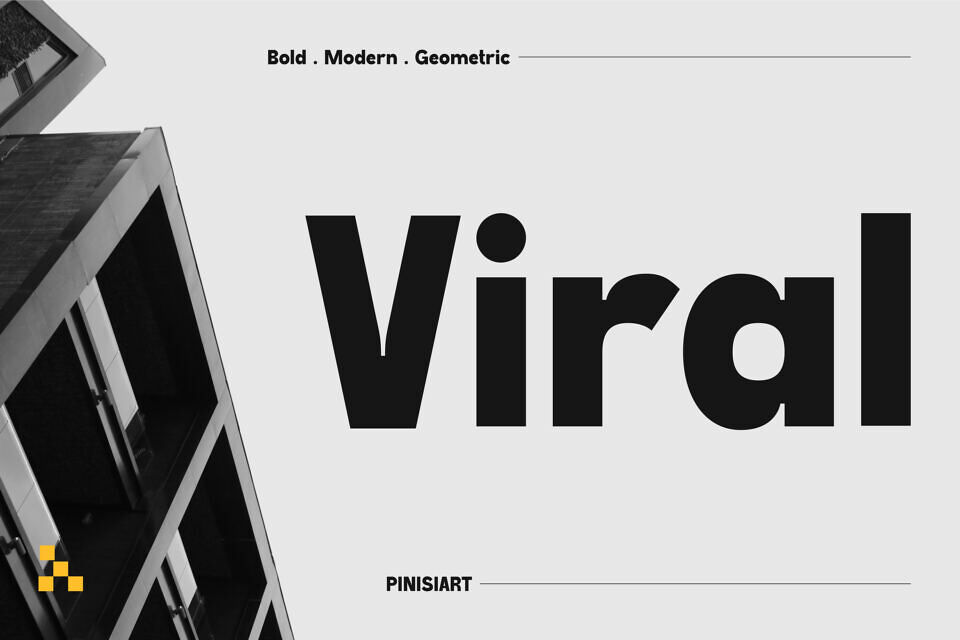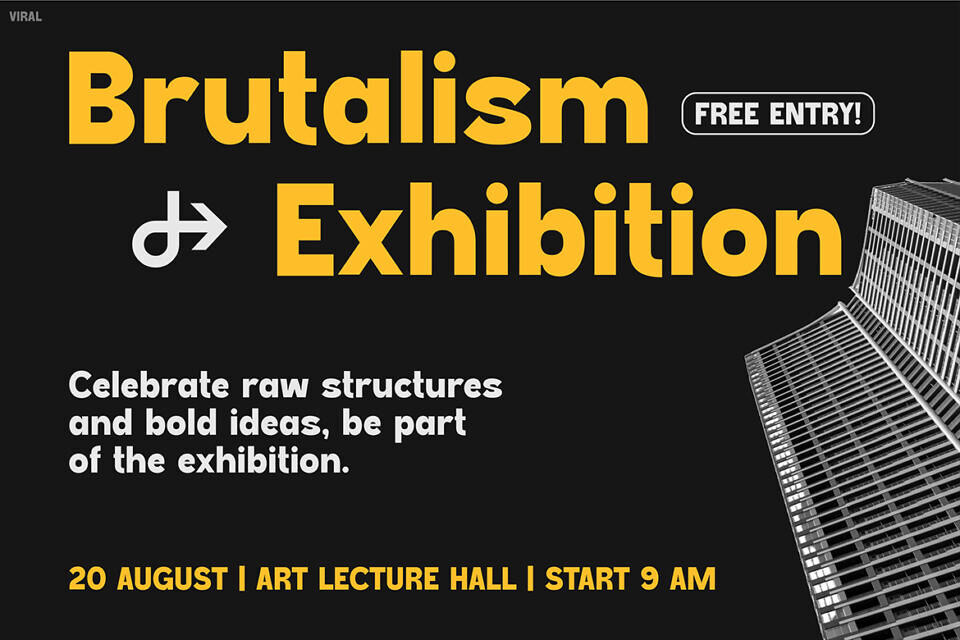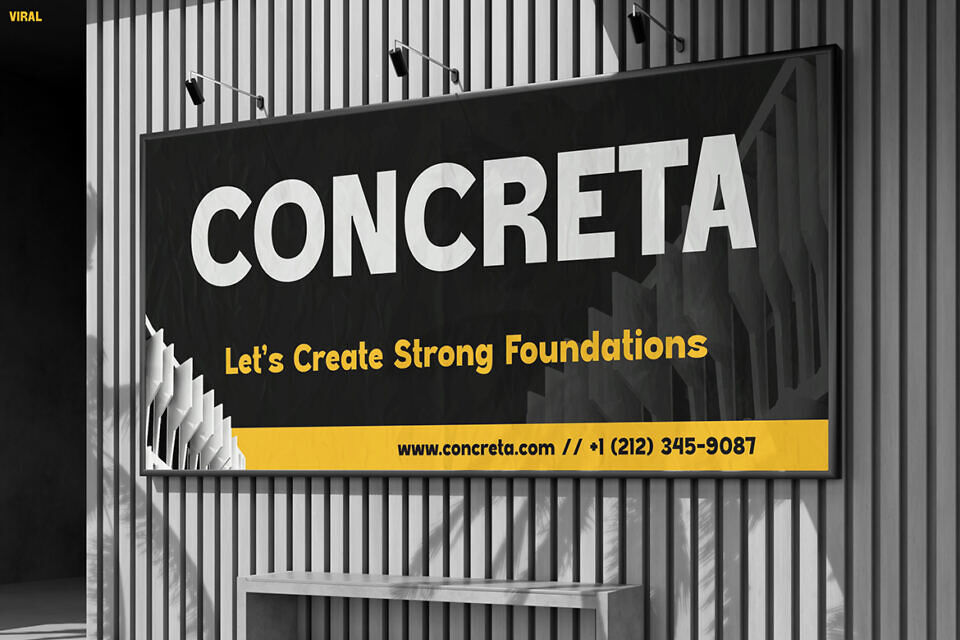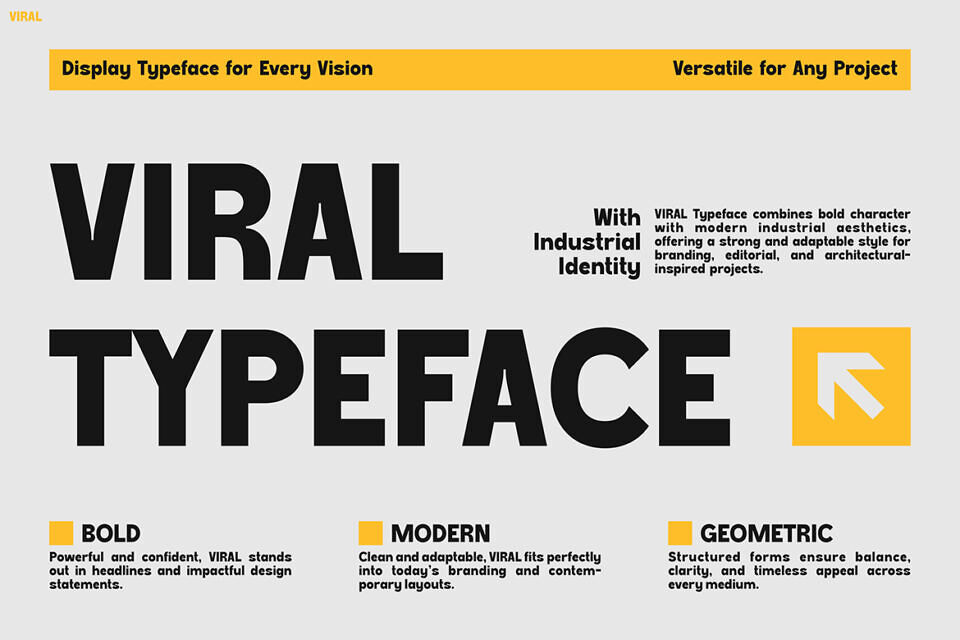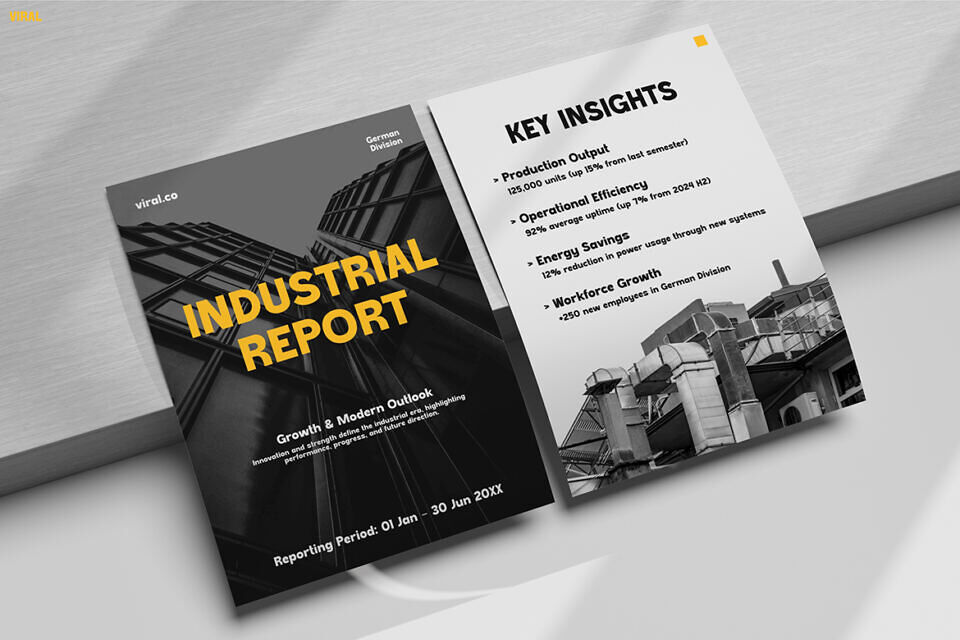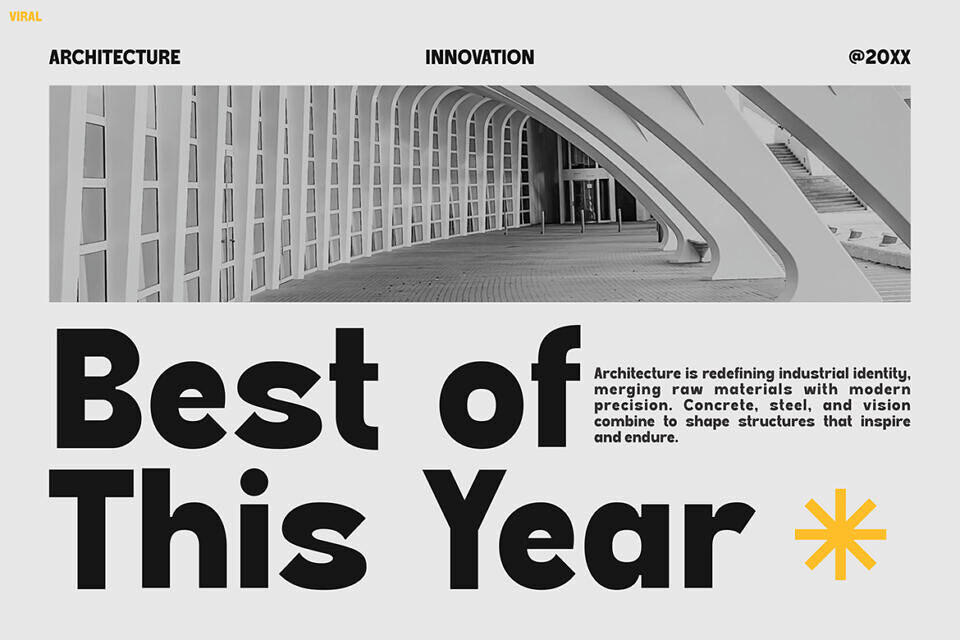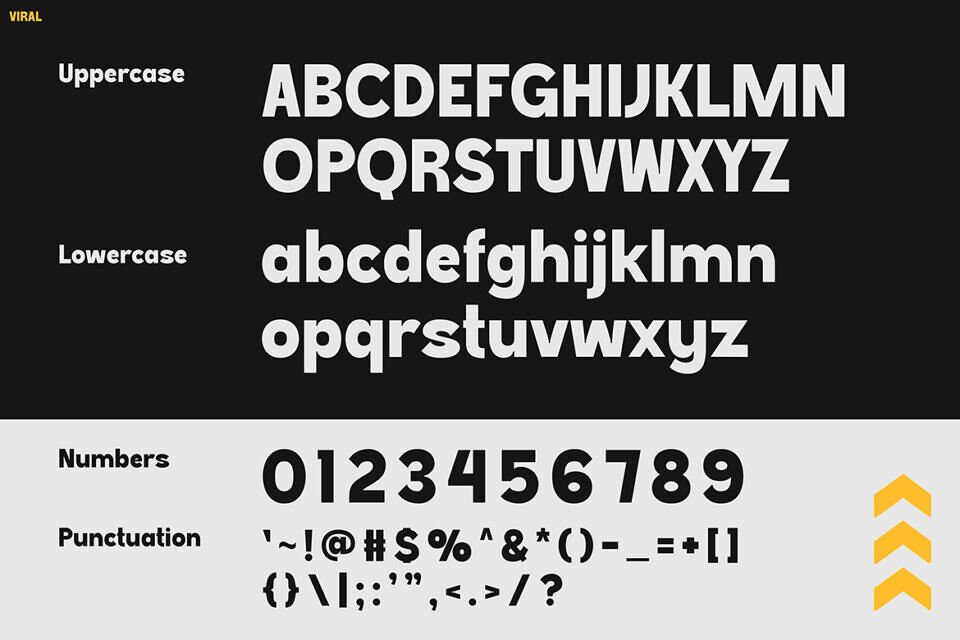
Viral Font
Viral is a bold geometric typeface designed to make designs stand out. With modern curves, clean edges, and balanced characters, it excels in headlines, branding, editorial layouts, social media graphics, packaging, and logos.
Combining strength and readability, Viral delivers a professional yet dynamic aesthetic, suitable for both print and digital projects. Its uppercase letters convey authority, while lowercase maintains approachability.